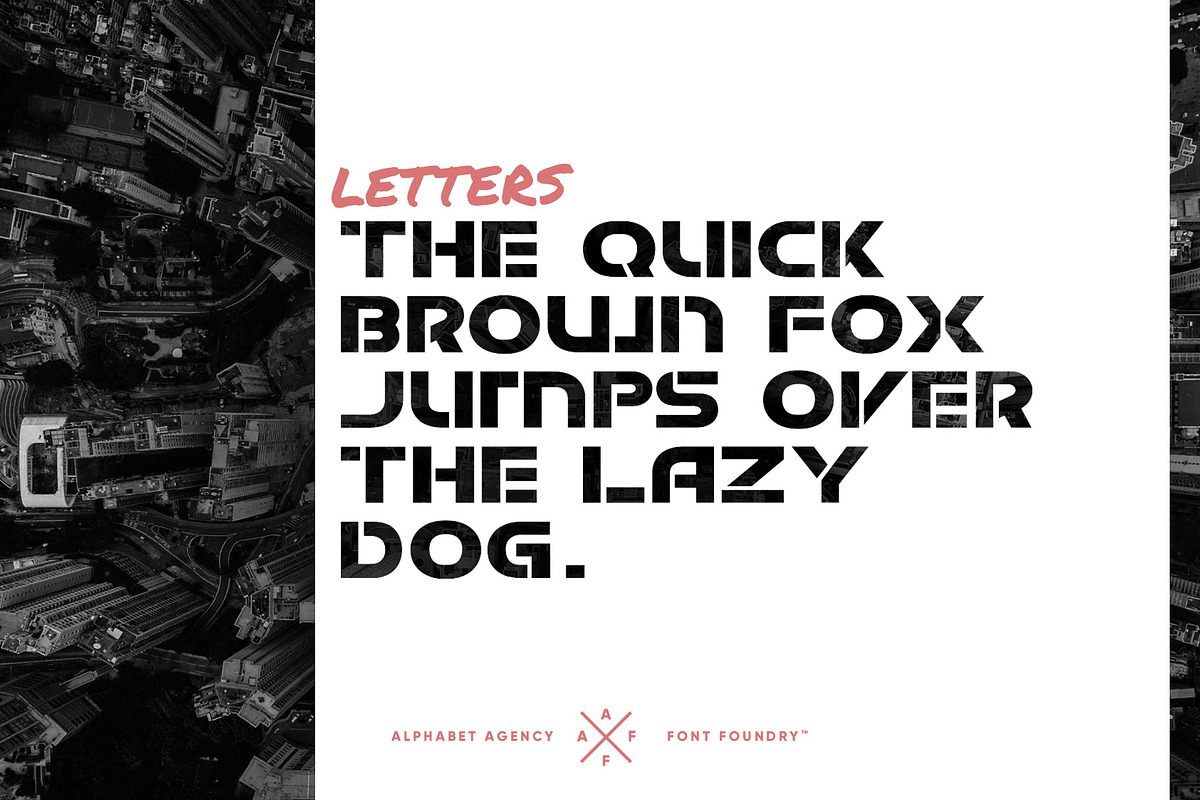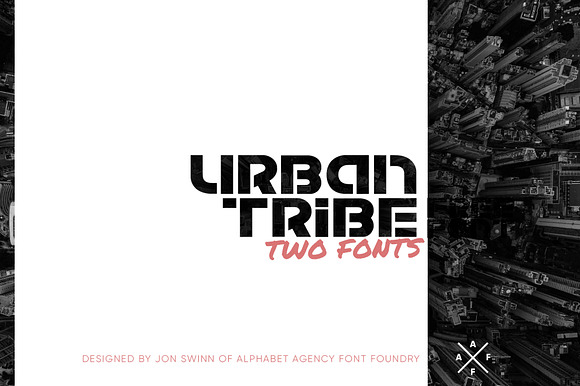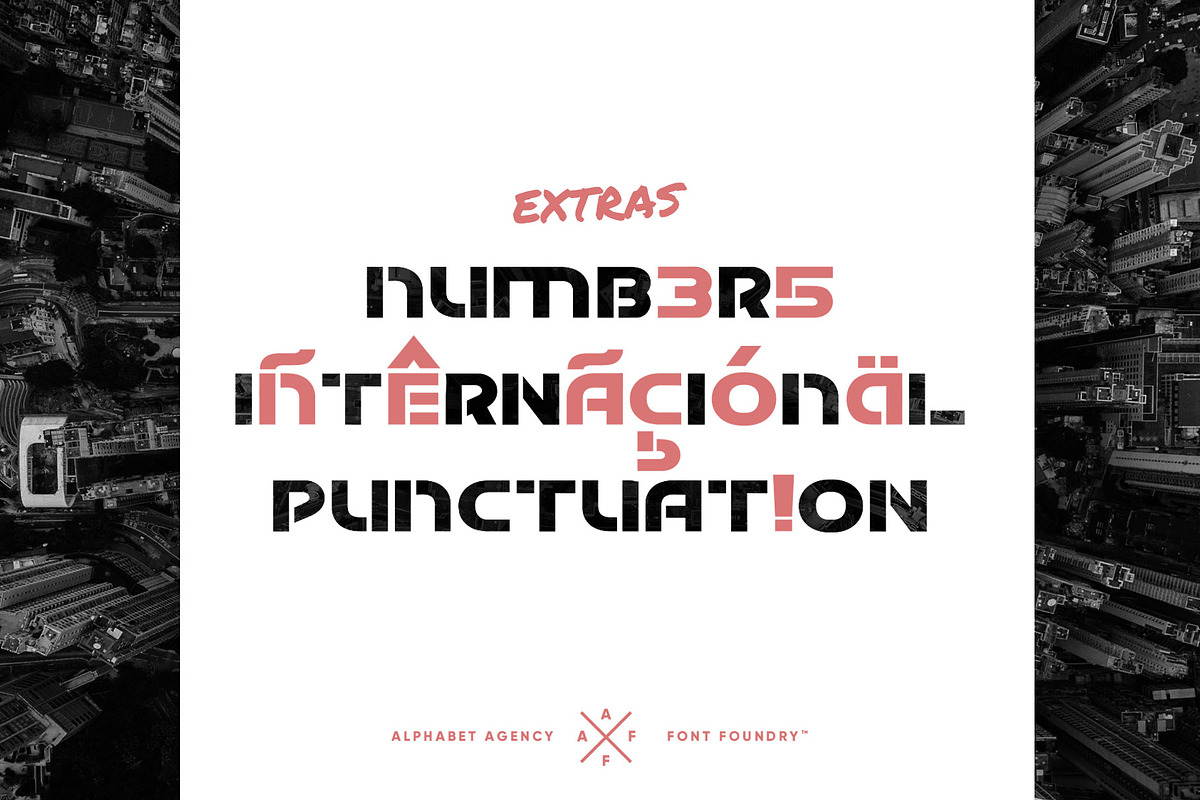
URBAN TRIBE FONTS
Urban Tribe is a modern stencil font and Urban Tribe Distressed is a grunge style version. Both fonts are designed by Jon Swinn.
- URBAN TRIBE Regular
- URBAN TRIBE DISTRESSED Regular